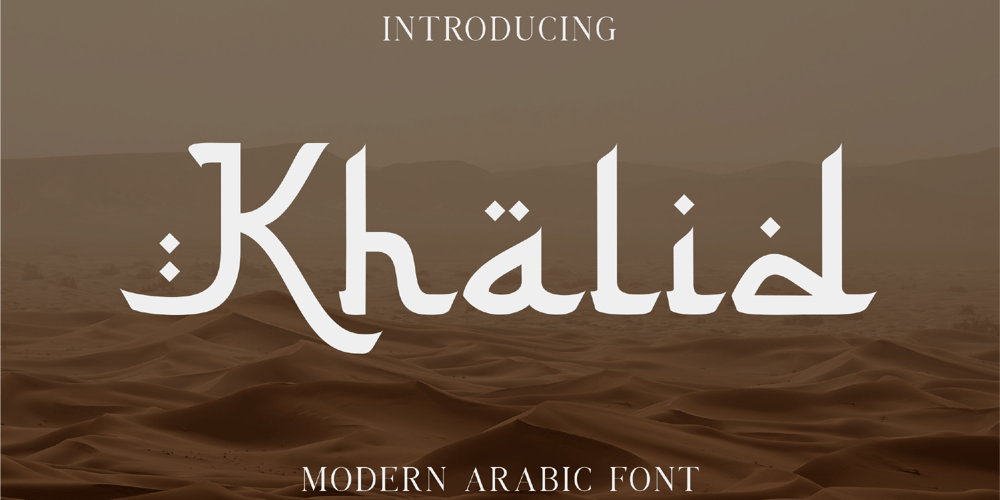
Khalid
Khalid font
Khalid Font Family was designed by Achmad Yani and published by Flawlessandco. Khalid contains 1 styles and family package options. Khalid is a modern Arabic font that combines traditional elements with a fresh, contemporary aesthetic. This versatile font is perfect for creating eye-catching designs for both digital and print projects. With its unique alternates and ligatures, Khalid offers a level of customization that sets it apart from other Arabic fonts. There’s some connected letters and some alternates that suitable for any graphic designs such as branding materials, t-shirt, print, business cards, logo, poster, t-shirt, photography, quotes .etcThis font support for some multilingual. Also contains uppercase A-Z and lowercase a-z, alternate character, numbers 0-9, and some punctuation.If you need help, just write me! Thanks so much for checking out my shop!